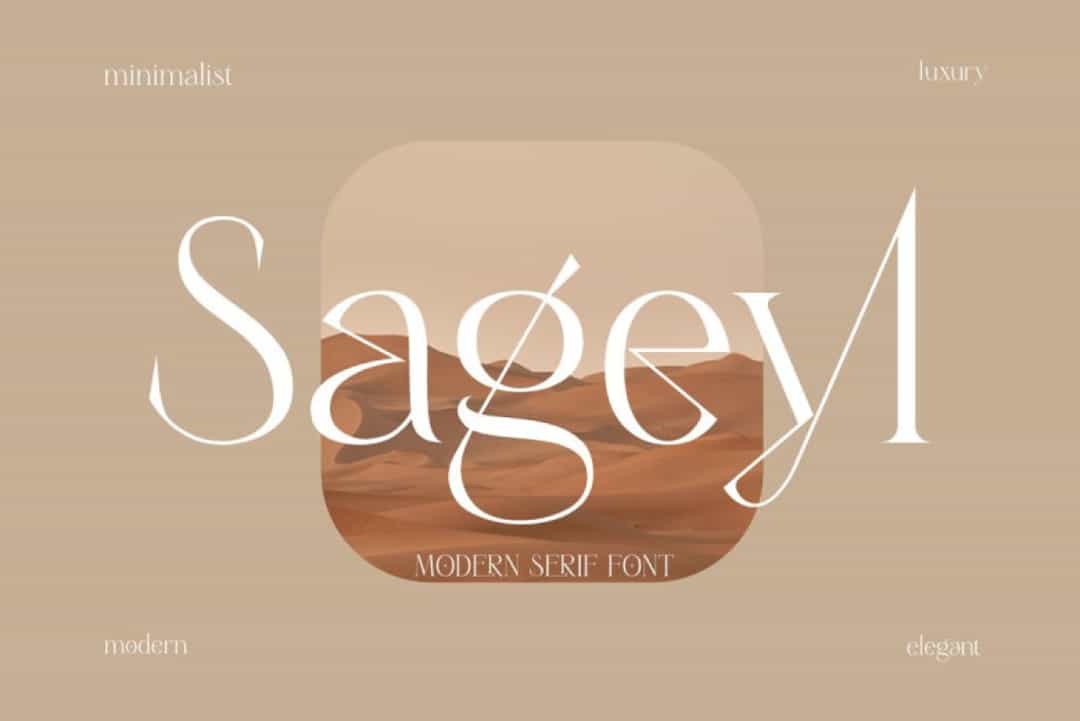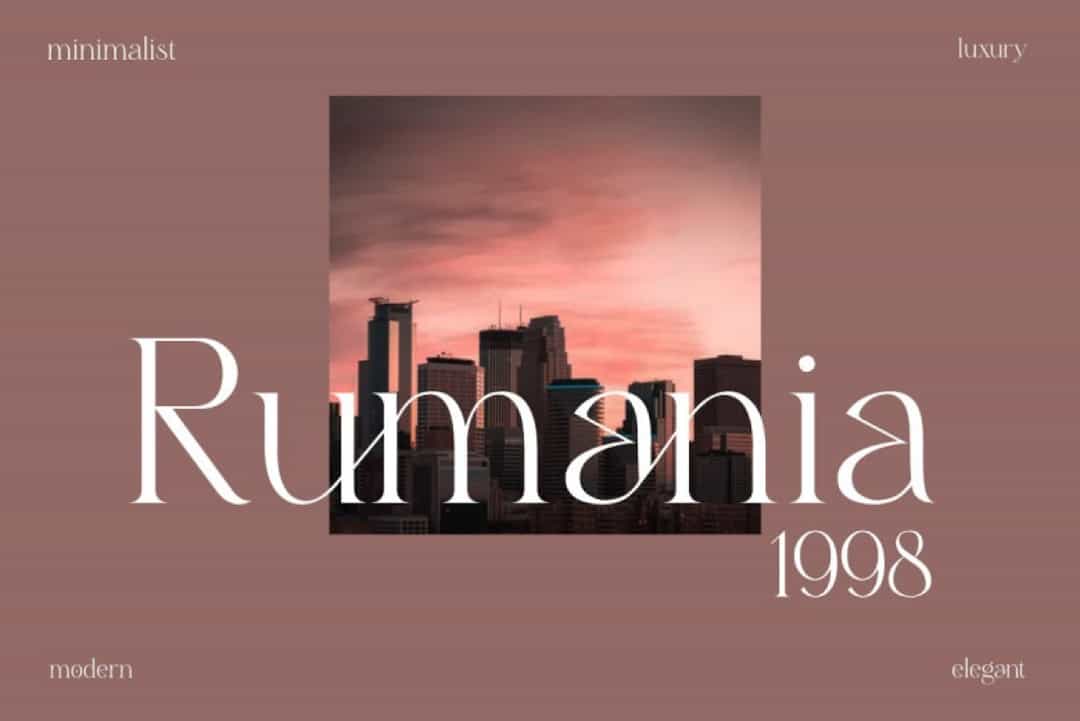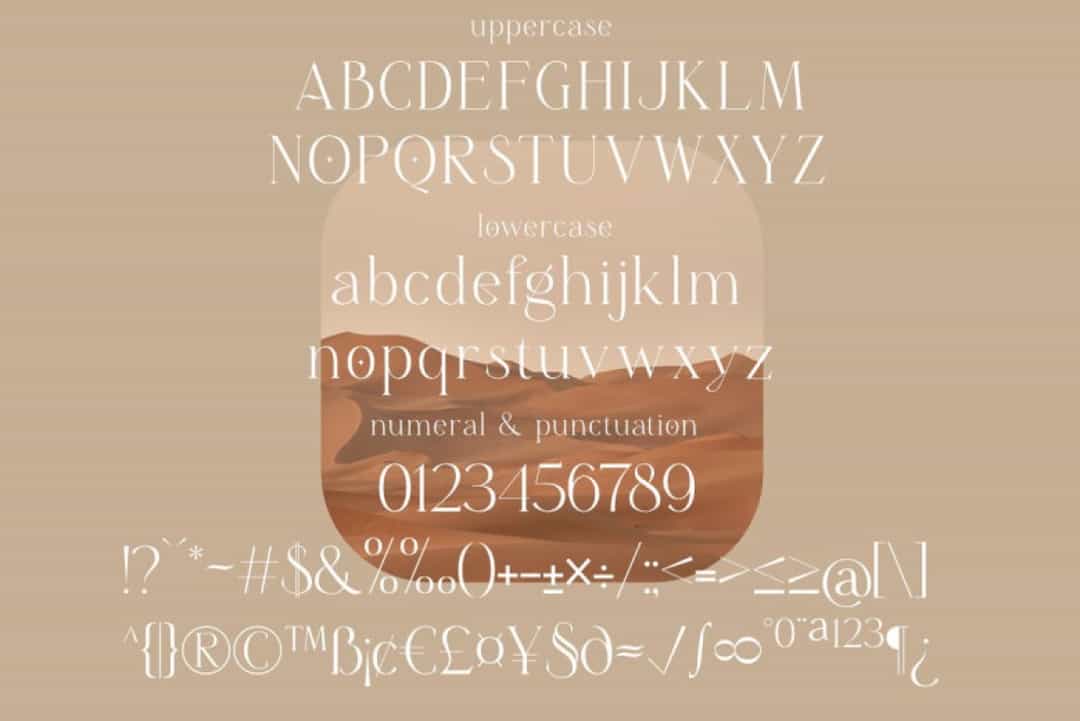
Sageyl Font is an edgy and contemporary serif typeface with its own distinct design and modern appearance, boasting its own distinct design. It swoops and loops in delicate dances that never become mundane or monotonous – an unforgettable logotype or header with which to combine something striking or clear.